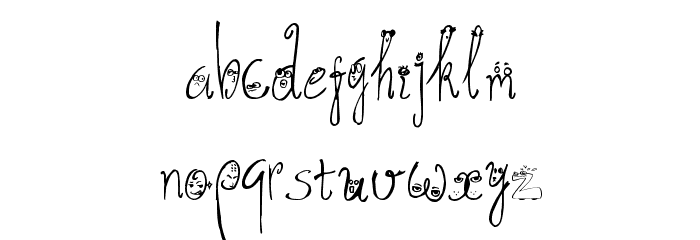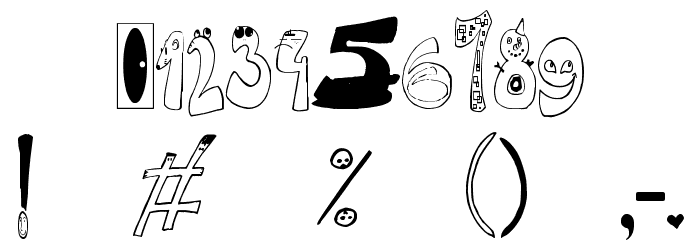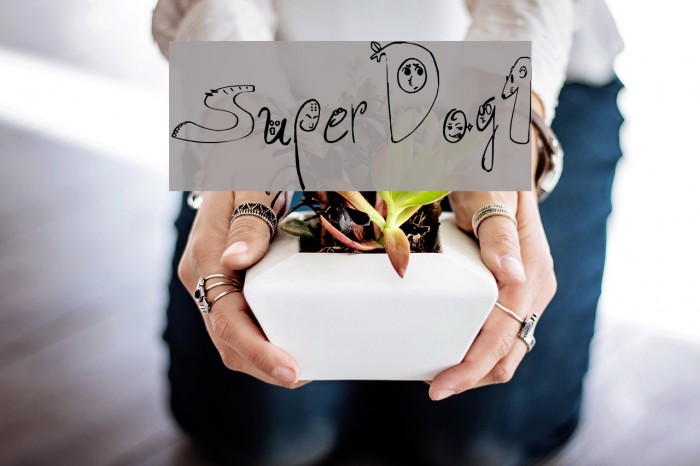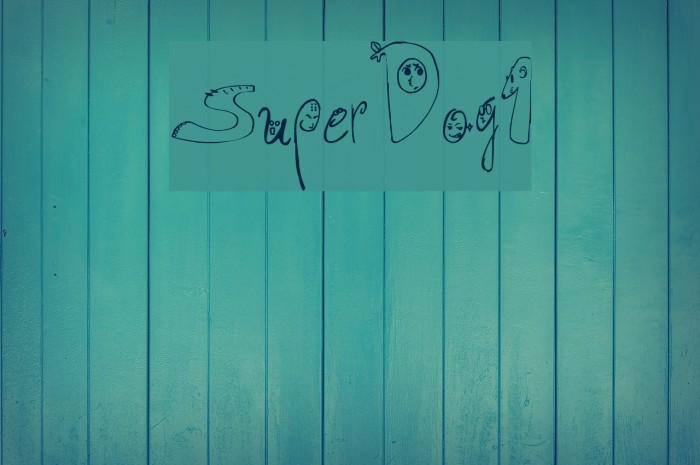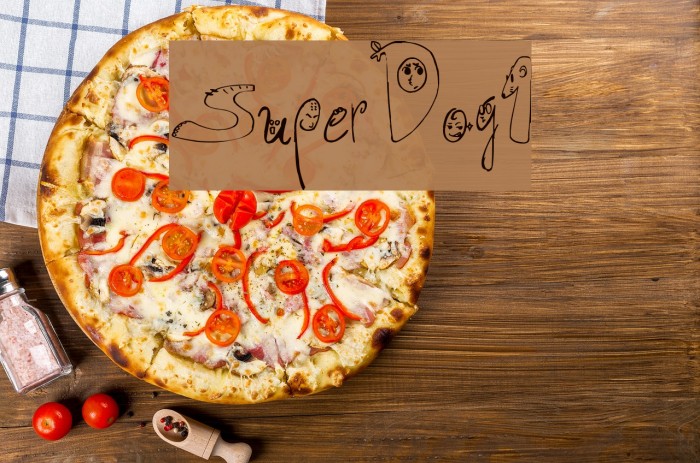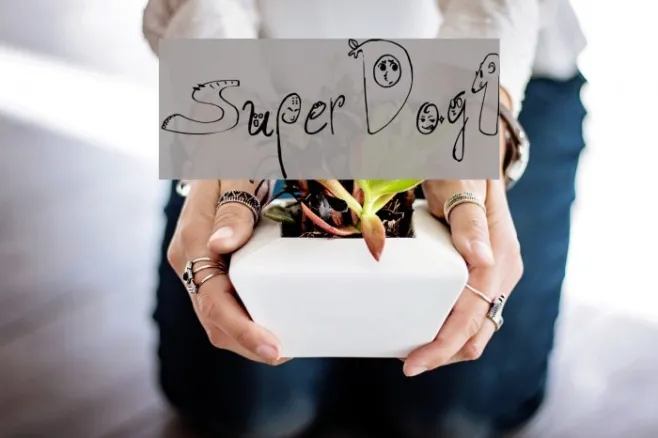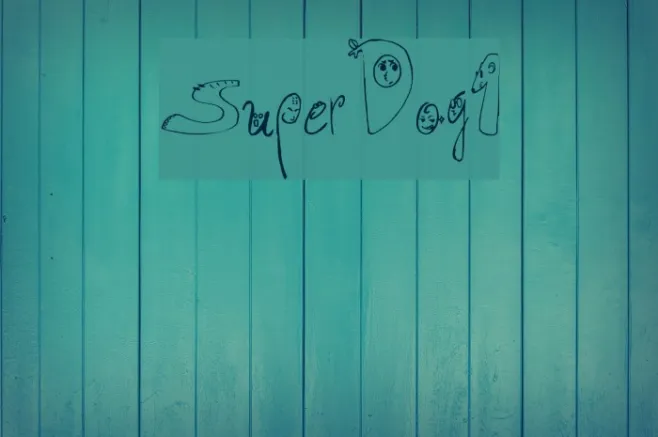
SuperDog1 Font
This playful and whimsical font features a variety of characters with unique and quirky designs. Each letter and number is creatively illustrated, incorporating elements like faces, hats, and other playful motifs. The uppercase letters are bold and cartoonish, while the lowercase letters maintain a more handwritten and artistic style. The numbers are equally imaginative, with each digit having its own distinct personality. The special characters continue this theme, adding a fun and lively touch to any text. This font is perfect for projects that require a lighthearted and creative approach.
A playful, whimsical font with creatively illustrated characters.
- Proposed Projects: Ideal for children's books, comic strips, playful branding, and creative posters.